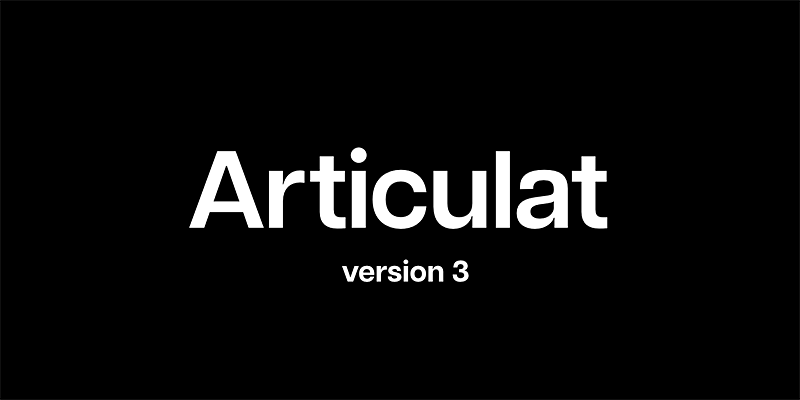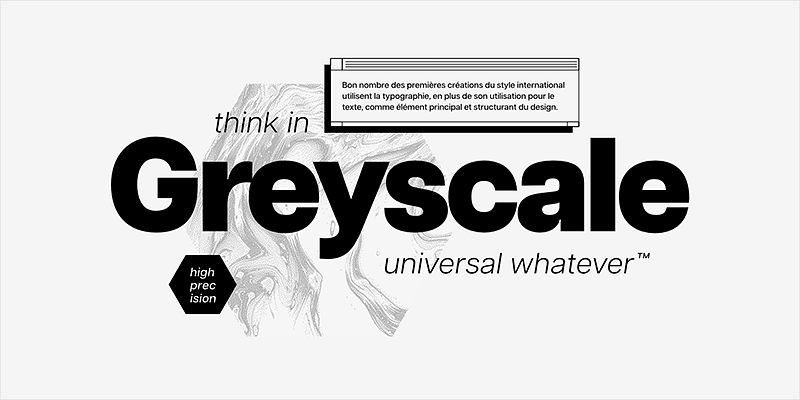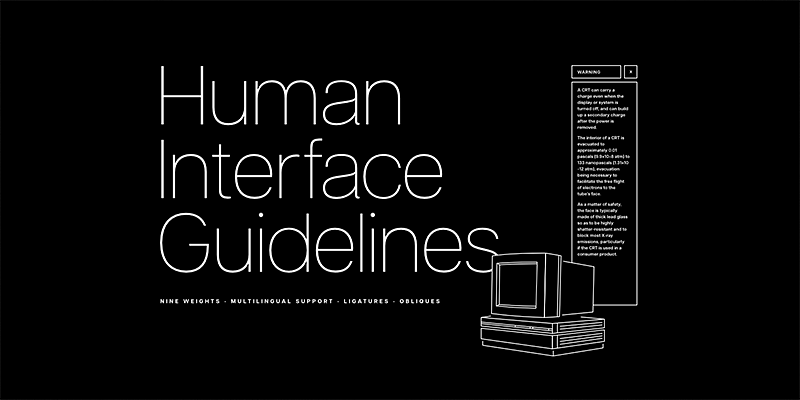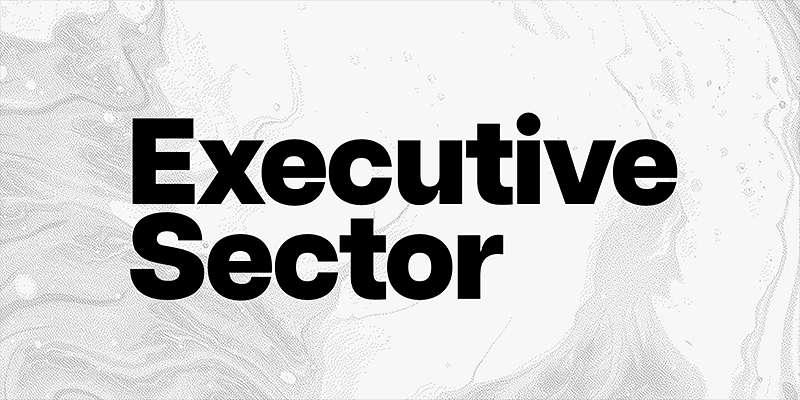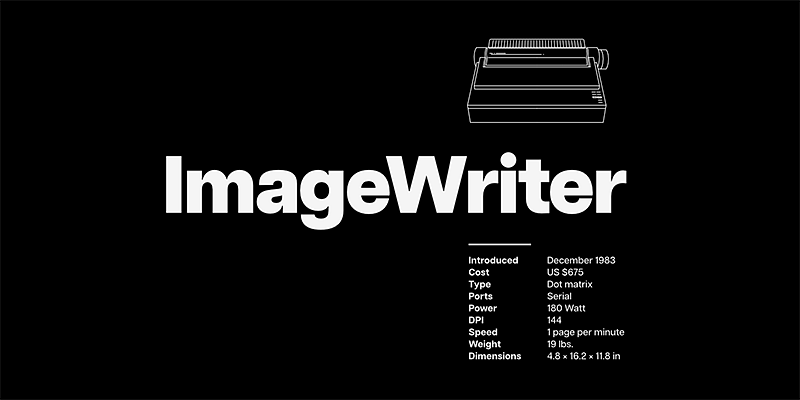
Articulat CF is a new take on the timeless Swiss typography style. Strong, sharp and well-spoken, Articulat was built to be versatile, charismatic and legible. Always in style, use it for a hit of mid-century beauty — reimagined for the 21st century with more flavor and individuality. Articulat CF is a sans serif font family. This typeface has twenty styles and was published by Connary Fagen Type Design.